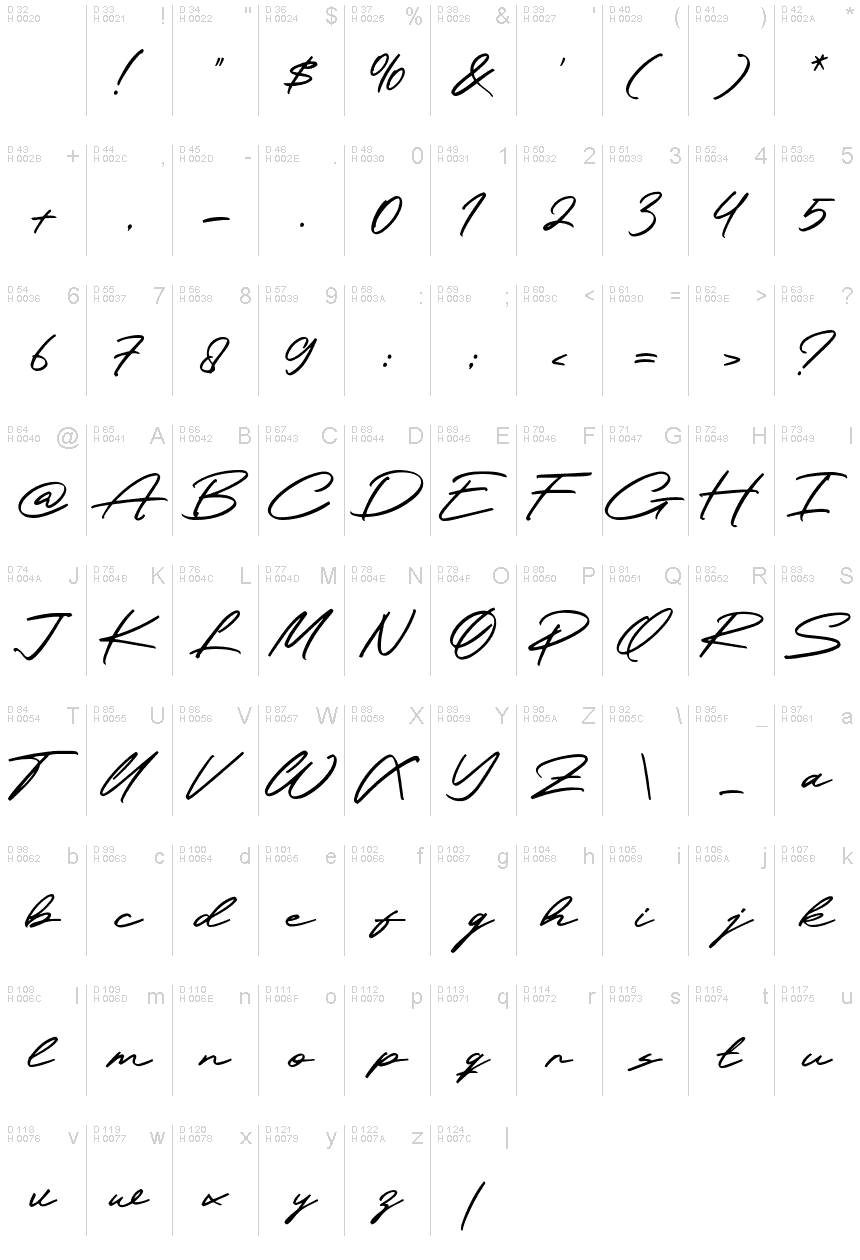
Cashrole
Cashrole, designed by Khurasan, is a handwritten font with a semi-light weight that boasts an effortlessly sophisticated style. Its fluidity and elegant strokes convey a personalized touch, making it perfect for projects that require a sense of intimacy and flair. The semi-light weight of Cashrole provides a delicate balance, ensuring readability while maintaining an airy grace that captures the essence of handcrafted artistry.
This font's aesthetic appeal lies in its ability to merge casual elegance with contemporary design. Each character is carefully crafted to present a harmonious flow, ideal for invitations, branding, editorial designs, and more. The uniqueness of Cashrole lies in its versatile nature; it can add a humanistic element to digital platforms or serve as an authentic touch in print media.